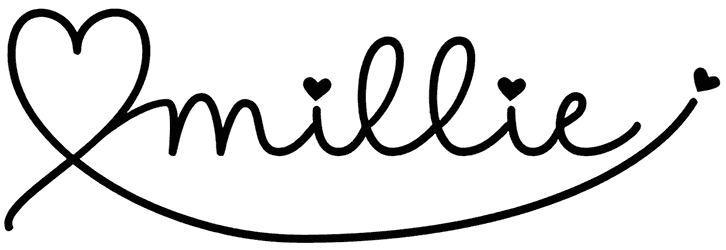
Caramel Chestnut Font
Caramel Chestnut font has an amazing hand-written and fantasy design. The characters in this script font are playful and can be a great choice for designing snacks and sweet treats such as donuts, chocolate, and caramel cream. In addition, this girly font can be useful in creating friendly invitation cards. You can explore and try more useful fonts like this one by visiting our ever-growing inventory.
Designed by: Letterhend Studio